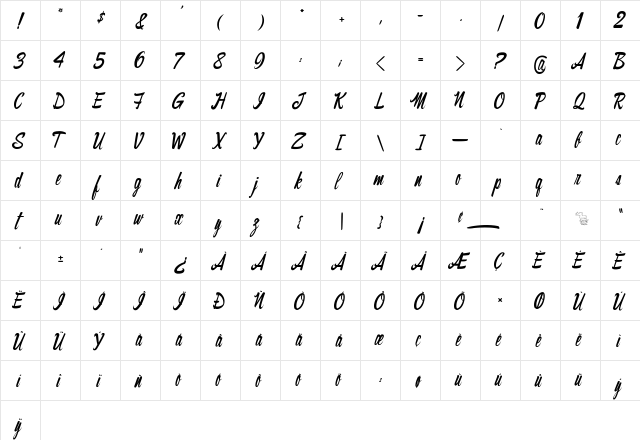
The Cinthia Edito Regular
| Foundry | dcoxy Medina Gregory |
| Designer | dcoxy Medina Gregory |
Design Context for The Cinthia Edito Typeface
The Cinthia Edito takes a measured approach to typography — its balanced proportions and neutral character make it a reliable workhorse for both digital and print work.